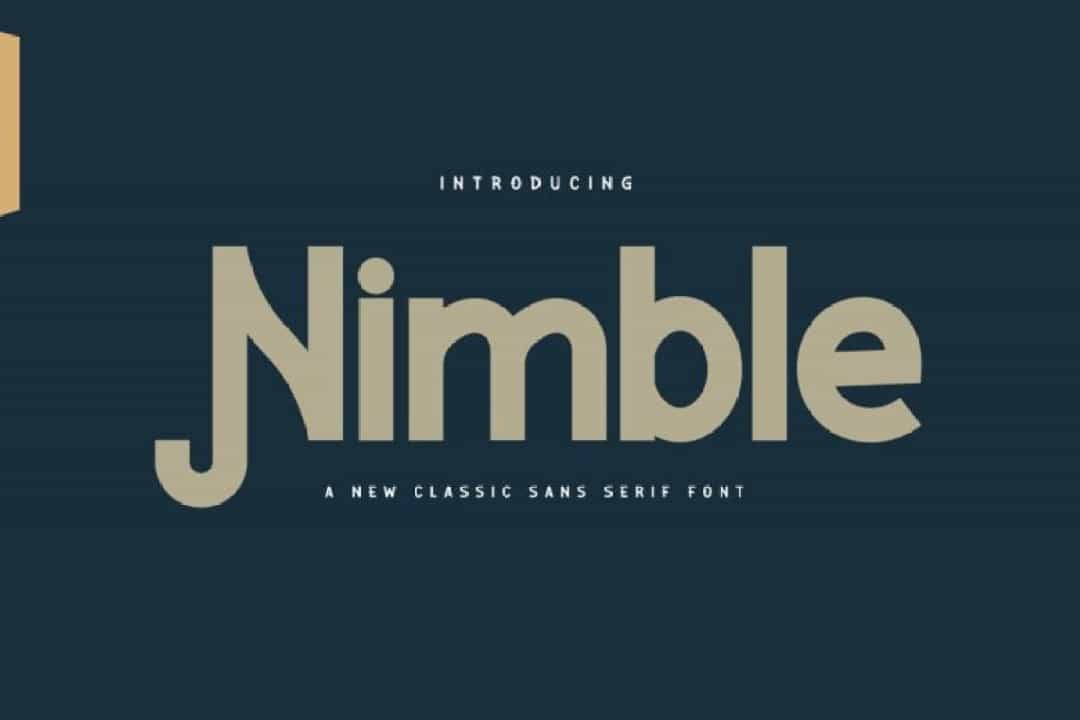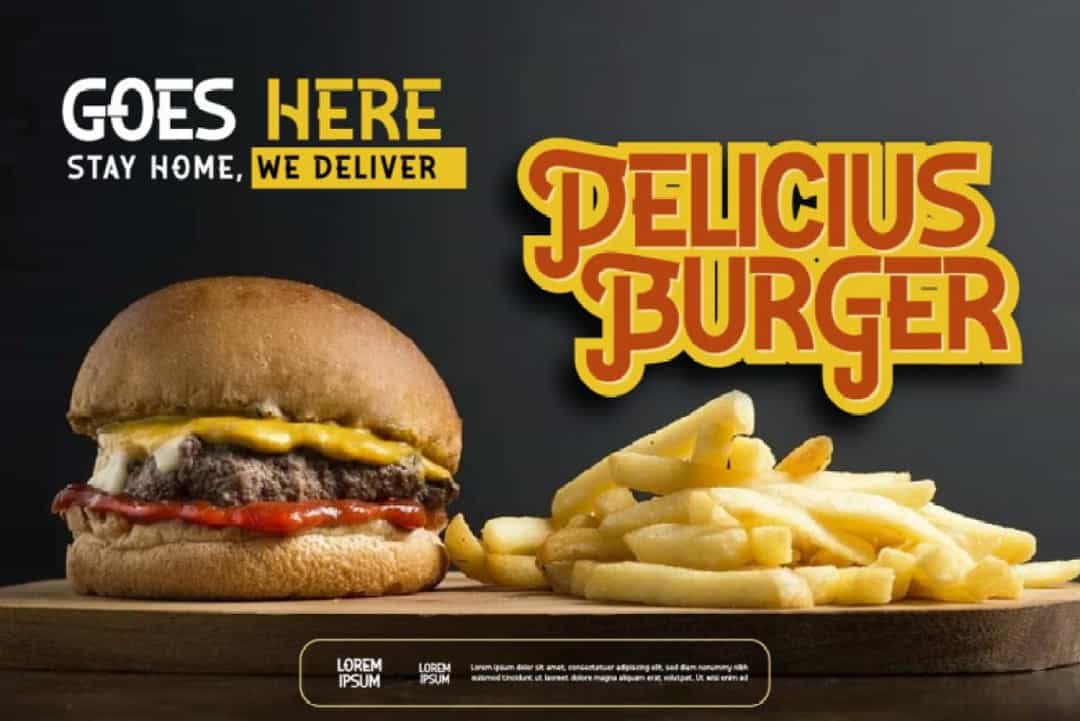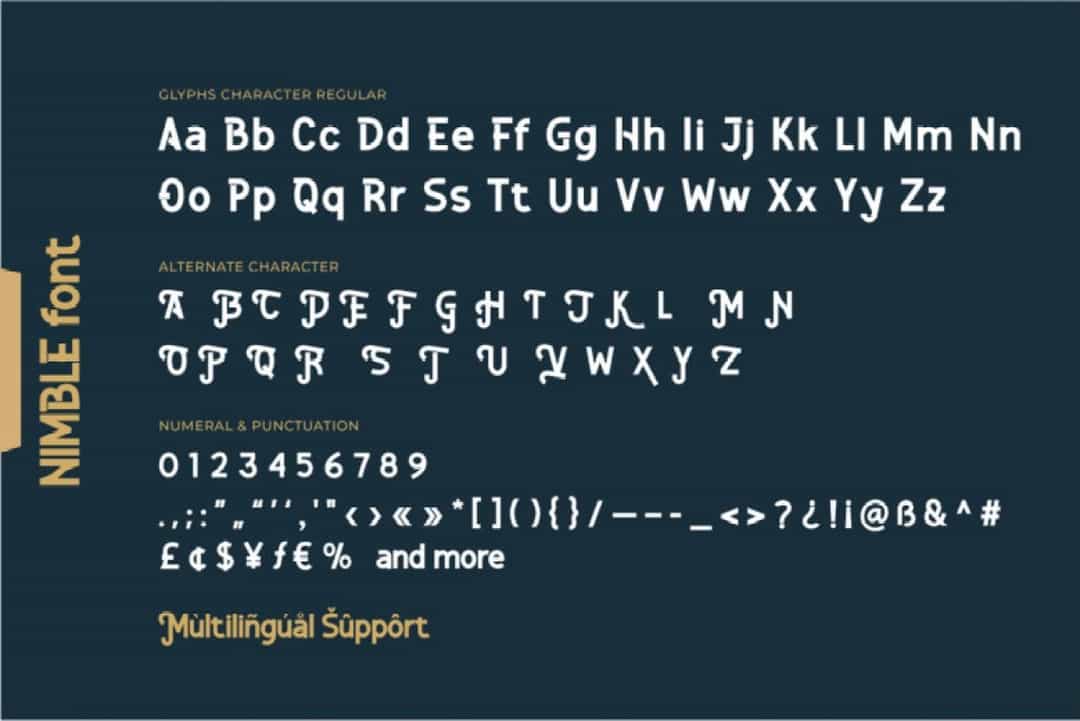
Nimble, classic Sans Serif Font has a unique and attractive, stylish formal and elegant appearance with a special touch and impression. Stylish, balanced and comfortable worn both on informal occasions and for official purposes; the shape of each letter can be changed with calligraphy that makes it possible to write individual letters or initials as names or trademarks, for example.